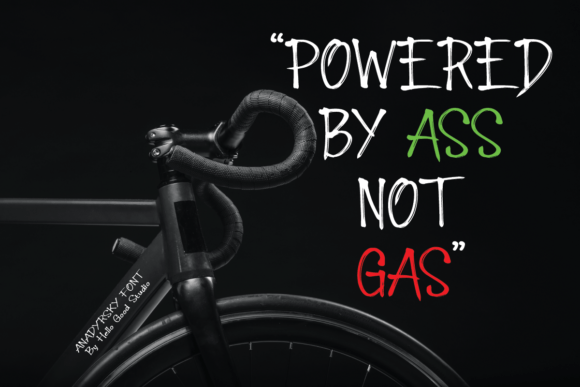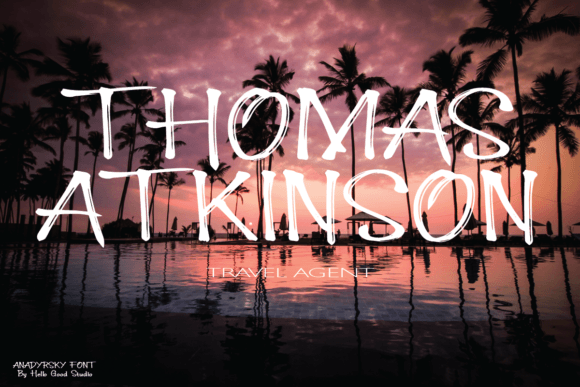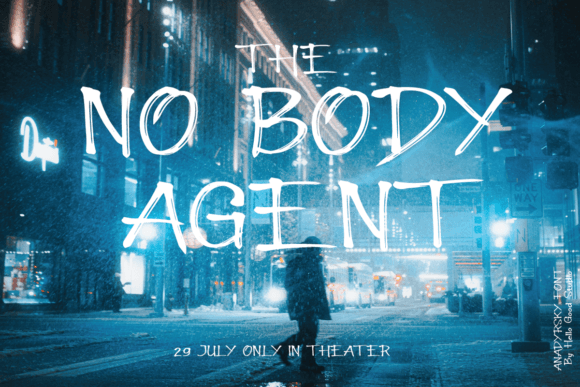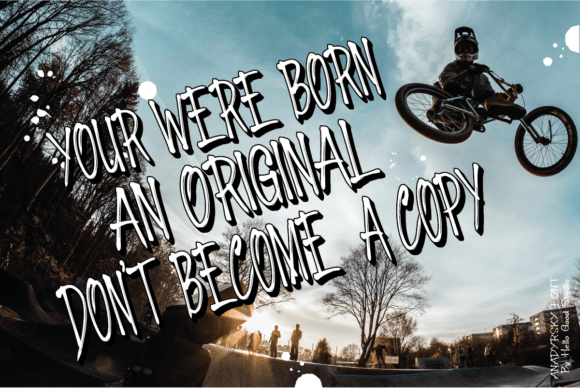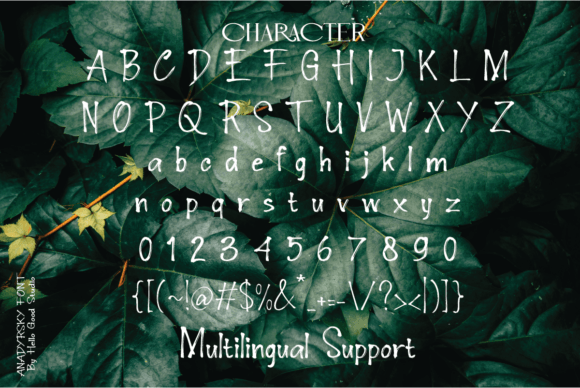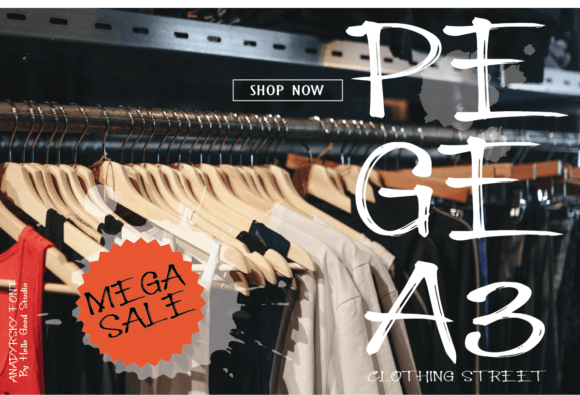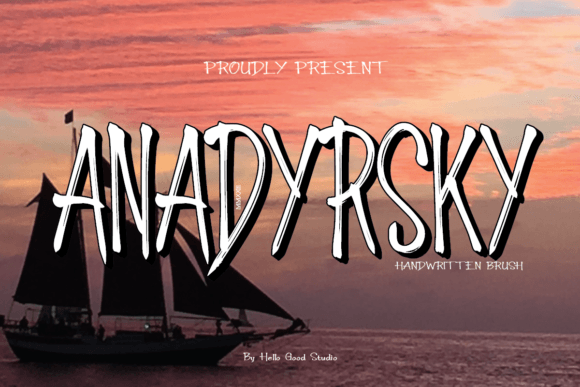
The Designer’s Delight: Anadyrsky Font
I’ll never forget the moment I stumbled upon the Anadyrsky font. I was working on a project for a client who wanted a unique, handwritten font that exuded elegance and sophistication. I had spent hours scouring the internet for the perfect font, but nothing seemed quite right. That was until I discovered Anadyrsky. It was love at first sight! 💕
Anadyrsky is a very natural and unique handwritten font, masterfully designed to become a true favorite. It maintains its classy calligraphic influences while feeling contemporary and fresh. In this article, I’ll share my experience with Anadyrsky, its features, and how to make the most of it in your designs.
• ✨ Unique and natural handwritten style
• ✅ Classy calligraphic influences
• 💫 Contemporary and fresh feel
• 🎨 Highly versatile for various design projects
While Anadyrsky is an excellent font, there are a few things to keep in mind:
• 🤔 Some characters may not work well in very small sizes
• ⚠️ Limited availability of certain glyphs
Exploring OpenType Features
Anadyrsky comes with a range of OpenType features that can elevate your designs:
• Stylistic alternates: swap out characters for a unique look
• Glyphs: access additional characters, such as ligatures and swashes
• Ligatures: combine characters for a more elegant look
Anadyrsky was designed with the intention of creating a unique, handwritten font that captures the essence of elegance and sophistication. The designer drew inspiration from traditional calligraphy and modern typography, blending the two to create a truly distinctive font.
Q: What is Anadyrsky font?
A: Anadyrsky is a unique, handwritten font with classy calligraphic influences and a contemporary feel.
Q: What design projects is Anadyrsky suitable for?
A: Anadyrsky is highly versatile and can be used for a wide range of design projects, including branding, packaging, and digital media.